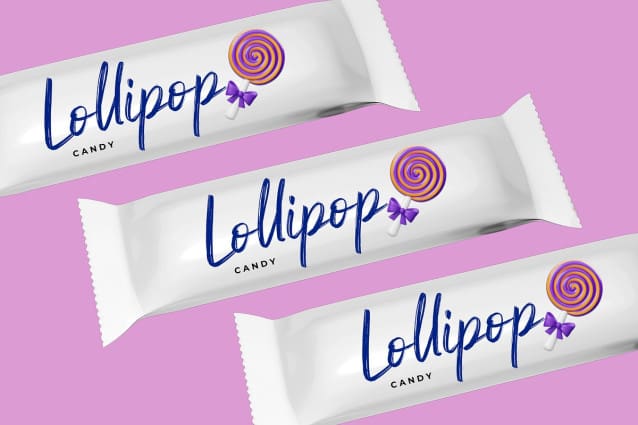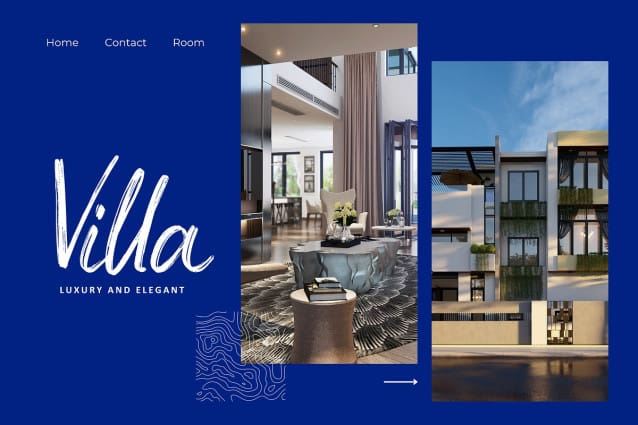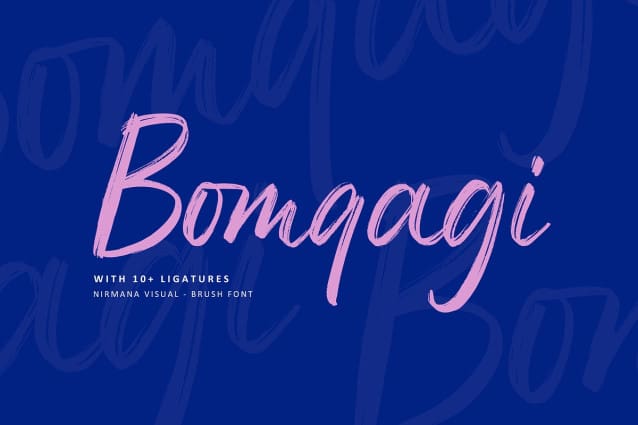
Bomqagi Brush Font
Bomqagi Brush Font – Brush Font offers beautiful typographic harmony for a diversity of design projects, including logos & branding, social media posts, advertisements & product designs.